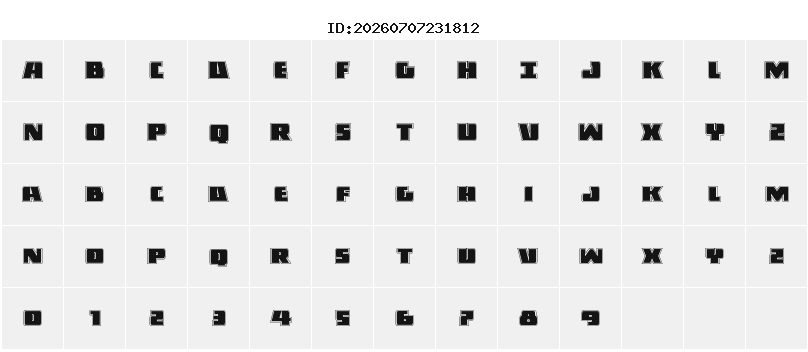
• Font Name: Dark Alliance Academy
• Full Font Name: Dark Alliance Academy
About Dark Alliance Academy.ttf
Dark Alliance Academy.ttf is a modern, elegant sans-serif font designed for ultimate readability and visual harmony. Perfect for branding, headlines, web design, and print materials.